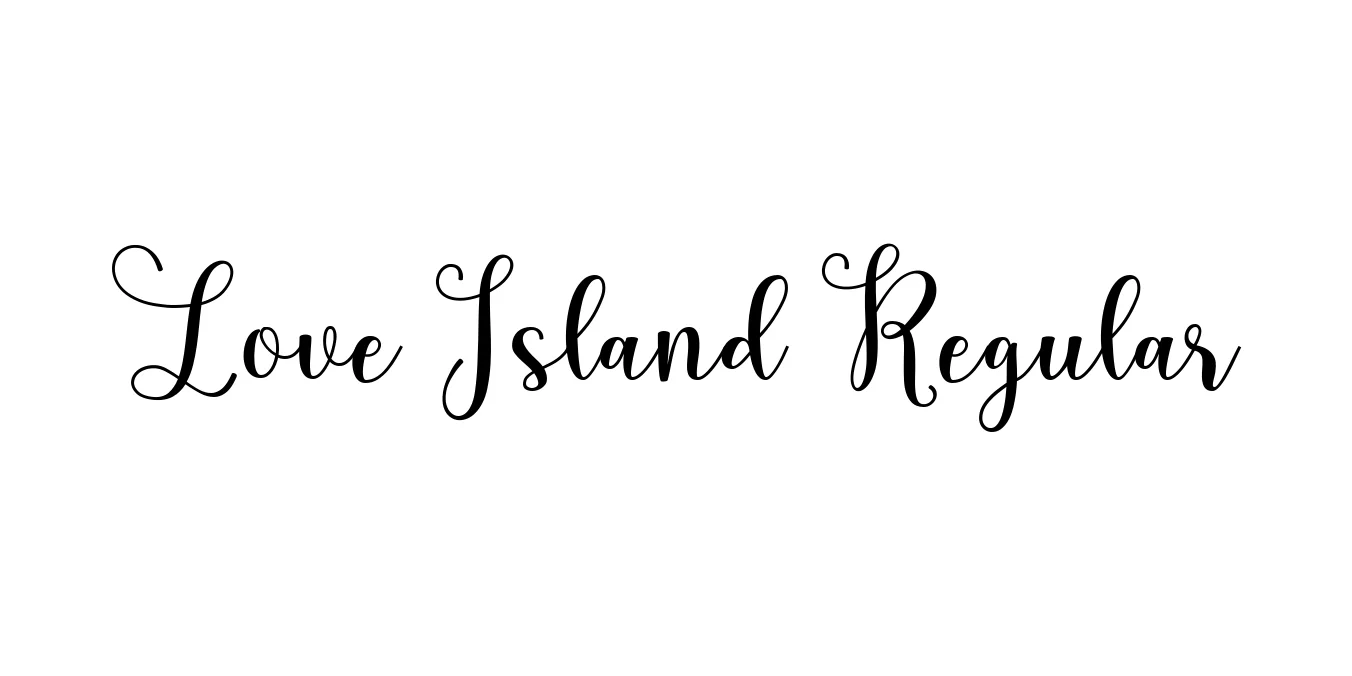
Love Island Regular
Designed by Lettersiro Studio
Love Island Regular is a contemporary brush script font that captures the essence of modern calligraphy with a touch of romantic elegance. Designed with fluid strokes and a hand-painted texture, this typeface is crafted to evoke feelings of warmth and spontaneity. It features a full set of uppercase and lowercase letters, along with numerals and punctuation, making it a versatile choice for designers looking to add a personal, artisanal touch to their digital and print projects.
This font has gained popularity in the creative community for its distinctive personality and high legibility despite its handwritten nature. Whether used for high-end wedding stationery, energetic social media graphics, or stylish branding identities, Love Island Regular provides a professional yet approachable aesthetic. Its natural flow and organic shapes make it an ideal selection for projects that require a human touch without sacrificing professional polish.
Love Island Regular Best Uses
Elegant invitations and RSVP cards with a personal touch.
Creating eye-catching quotes and vibrant Instagram stories.
Developing unique logos and boutique brand identity packages.
Designing stylish t-shirts and fashion merchandise.
Artisanal product labels and personalized gift tags.